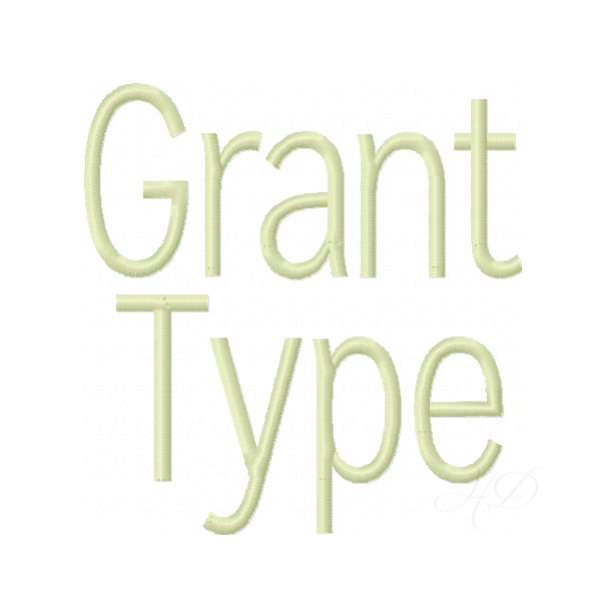
Grant Satin Embroidery Font
The Grant Embroidery Font package is a satin stitch sans serif Franklin Gothic font in 6 sizes which will all fit inside of a 4x4 hoop or larger.
This Herrington Design exclusive package also includes numbers 0-9.